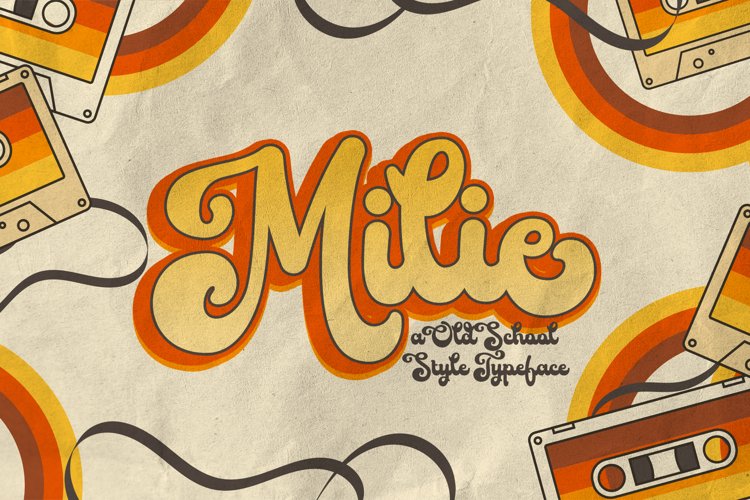
Milie is a retro script font collection of letters inspired by 70s typographic designs. Perfect for branding, stickers, posters, vintage designs, logos, wall art and more!